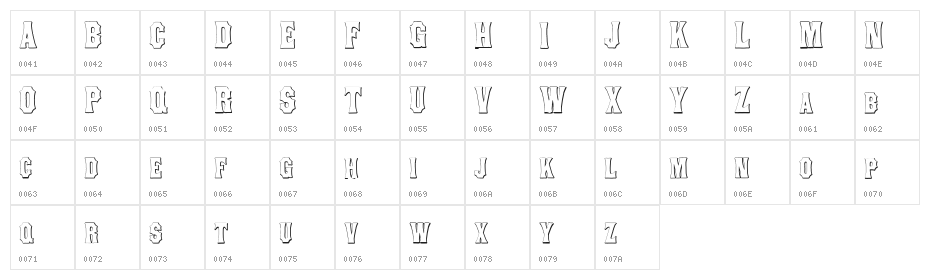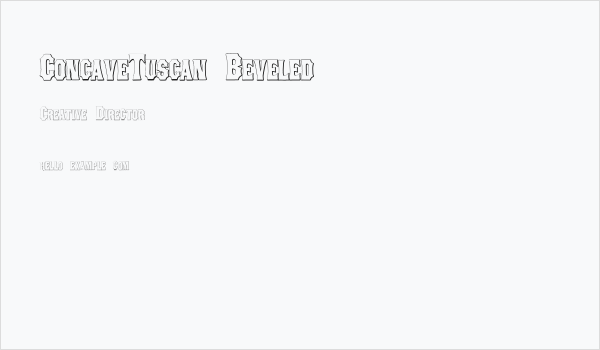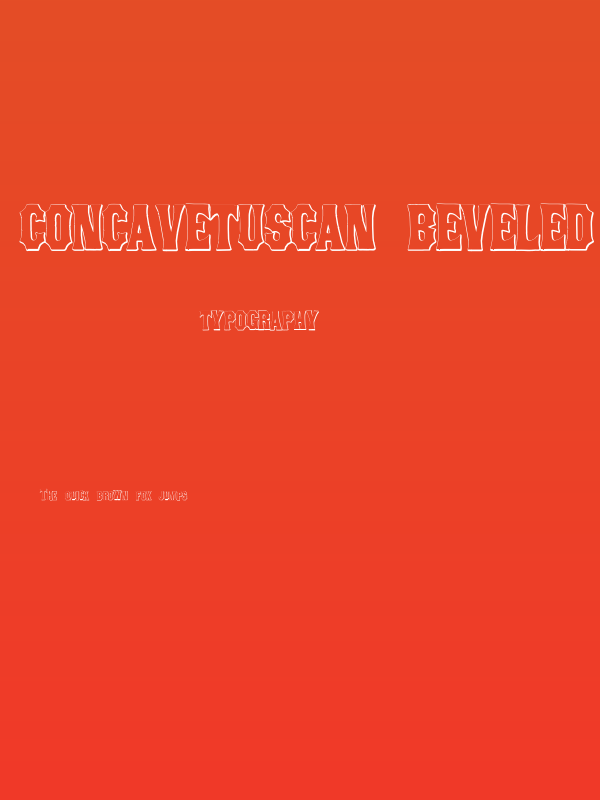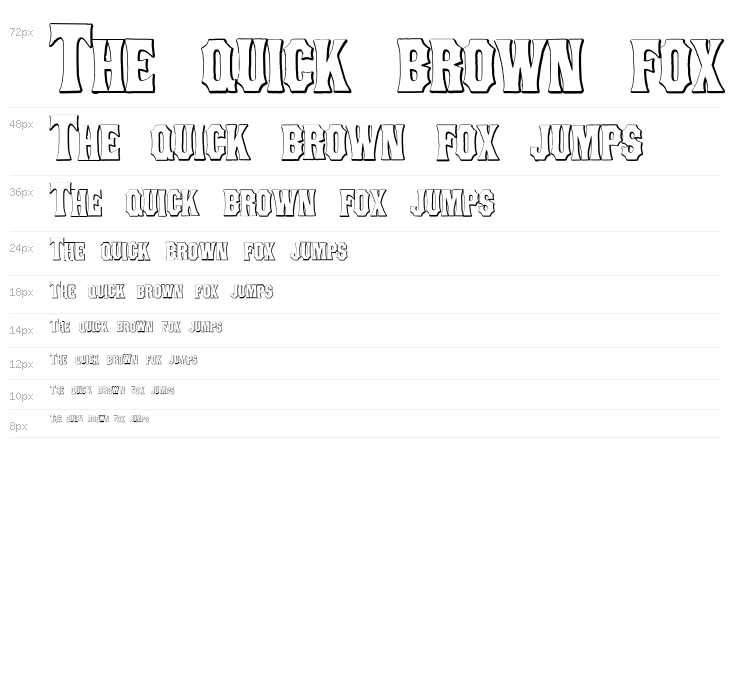
ConcaveTuscan Beveled Font
ConcaveTuscan Beveled Description
This font features a bold, decorative style with a distinctive beveled edge that gives each character a three-dimensional appearance. The letters are uppercase and have a strong, impactful presence, making them ideal for attention-grabbing designs. The strokes are thick and consistent, with a slight inward curve that adds a unique flair to the overall design. The font's intricate detailing and shadowing effects create a sense of depth and texture, enhancing its visual appeal. It is well-suited for projects that require a vintage or western aesthetic, as its style evokes a sense of nostalgia and rugged charm.
| Proposed Projects | Ideal for vintage posters, western-themed designs, logos, and signage that require a bold, eye-catching typeface. |